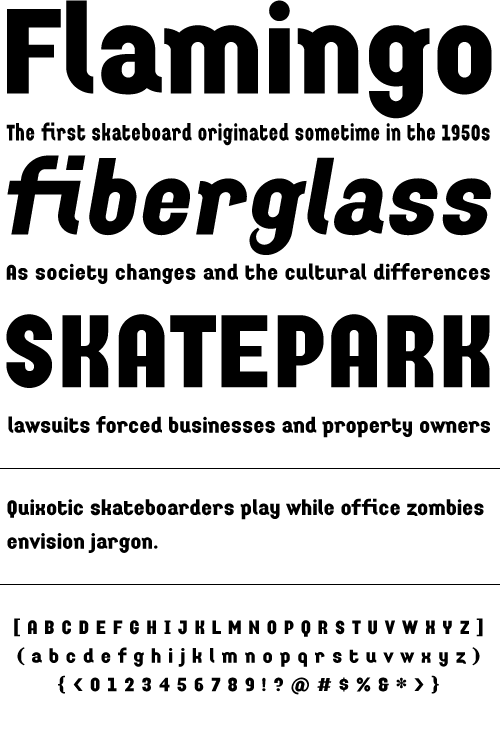
Curbdog
Curbdog is a bold, playful display face with light horizontals and curved terminals in the italics.
Year Designed:
1998
Weights:
Regular, Italic, Condensed